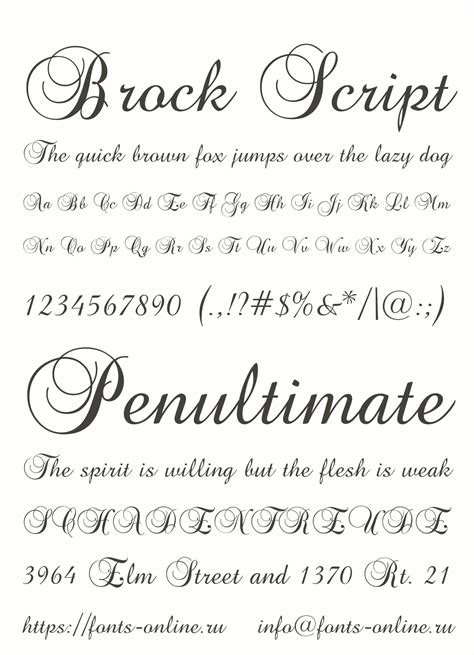
Brock Script Font. Web brock script is a script, calligraphy font designed by dieter steffmann. Web brock script is a script, calligraphy font designed by dieter steffmann.
Web brock script is a script, calligraphy font designed by dieter steffmann. Web brock script is a script, calligraphy font designed by dieter steffmann. The font is licensed as free. Web brock script is a script, calligraphy font designed by dieter steffmann. The font is free for both.